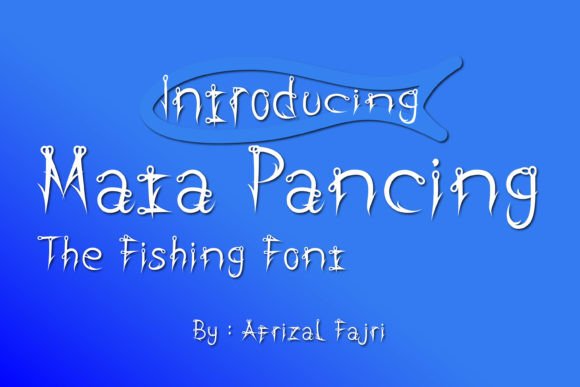
Get ready to dive into the depths of creativity with Mata Pancing Font, the ultimate display font that's as captivating as the ocean itself!
Mata Pancing is not just a font – it's a gateway to a world of endless possibilities. Its playful and energetic curves will breathe life into your designs, making them as vibrant and unique as the swaying seaweed.
Picture this: your designs adorned with Mata Pancing's enchanting letterforms, captivating your audience like a siren's song. From T-shirts that whisper stories to stickers that ignite imaginations, Mata Pancing empowers you to create masterpieces that will make waves.
Dive into the depths of your creativity and explore the vast sea of possibilities that await with Mata Pancing Font. Its unique personality and mesmerizing charm will transform your designs into true works of art.